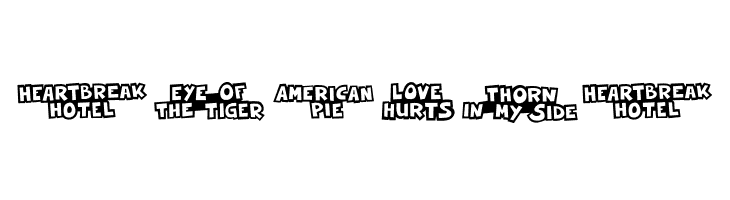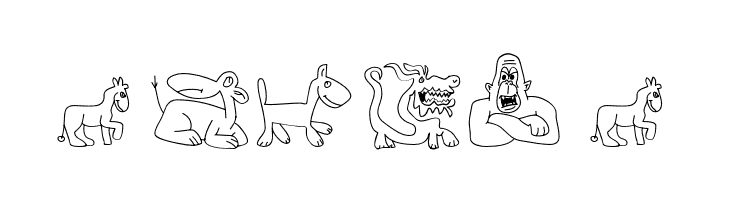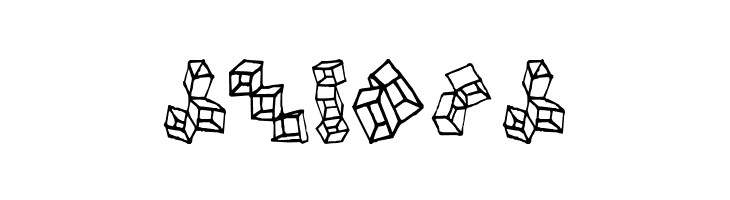
A whimsical, decorative font with branch-like extensions and consistent stroke thickness.
Cartoonish ghost-themed decorative font with expressive faces.
Playful, confetti-inspired decorative font with varied geometric shapes.
A decorative, playful font with a Latin American comic book style.
A bold, decorative font with a playful and vintage-inspired style.
Playful animal illustrations form each character in a decorative, hand-drawn style.
A decorative font made of interconnected cubes, offering a 3D geometric style.
A playful decorative font featuring cartoon-like characters in various activities.